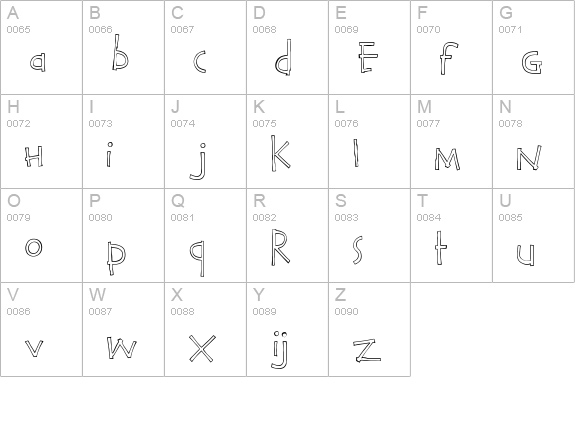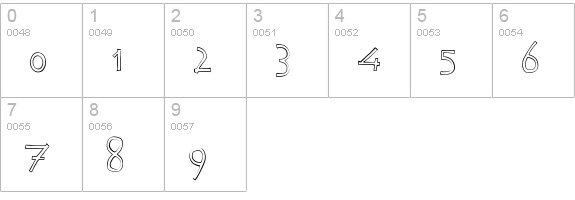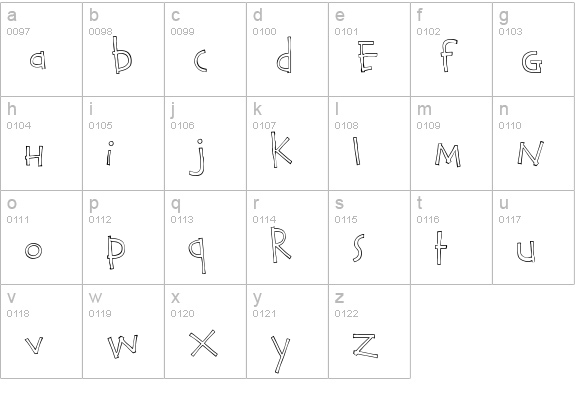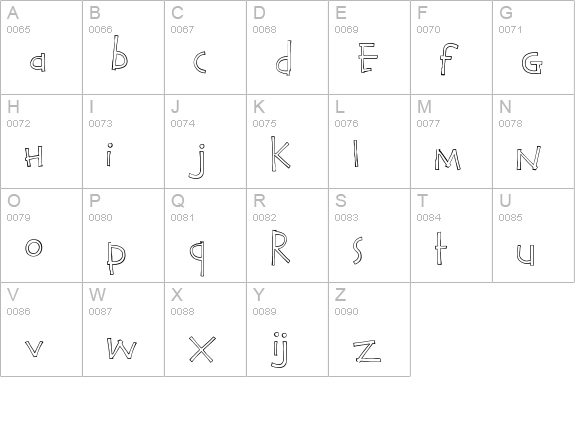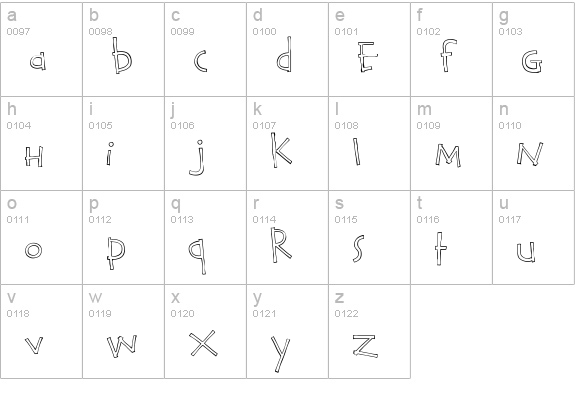
Calvin and Hobbes Outline Font Details
Calvin and Hobbes Outline font is a playful and whimsical typeface inspired by the beloved comic strip created by Bill Watterson. This font captures the essence of Calvin and Hobbes with its quirky outline style that exudes charm and nostalgia. Perfect for adding a touch of fun to your designs, this font is versatile and can be used for a variety of projects such as posters, greeting cards, branding, and more. Best of all, Calvin and Hobbes Outline font is available for free download at FontsMarket.com. So, whether you're a fan of the comic strip or simply looking for a unique and eye-catching font, be sure to grab this font and let your creativity run wild!